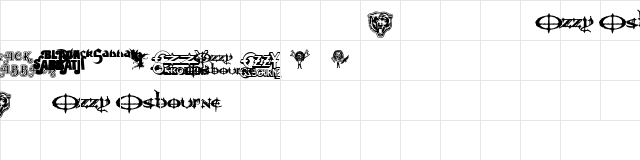
SabOzzDings Regular
Design Context for SabOzzDings
SabOzzDings is a composed and adaptable typeface that performs quietly and consistently across a wide range of design contexts.